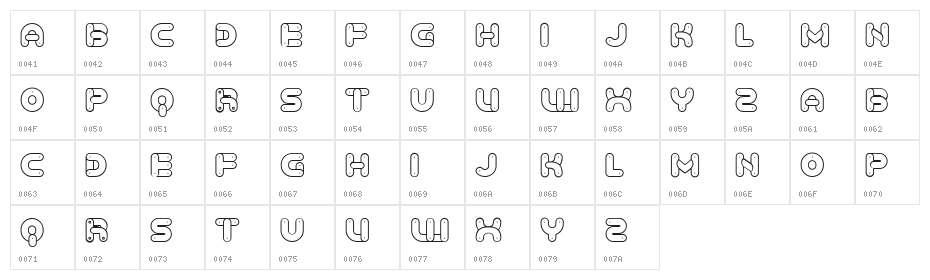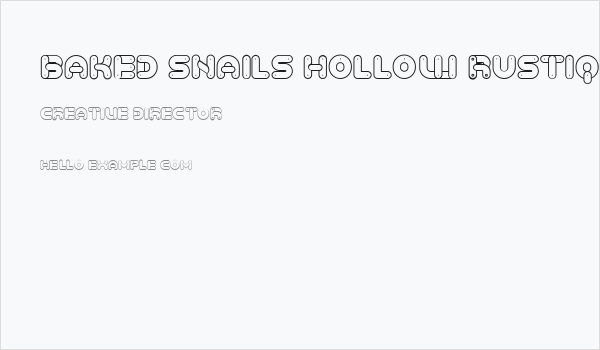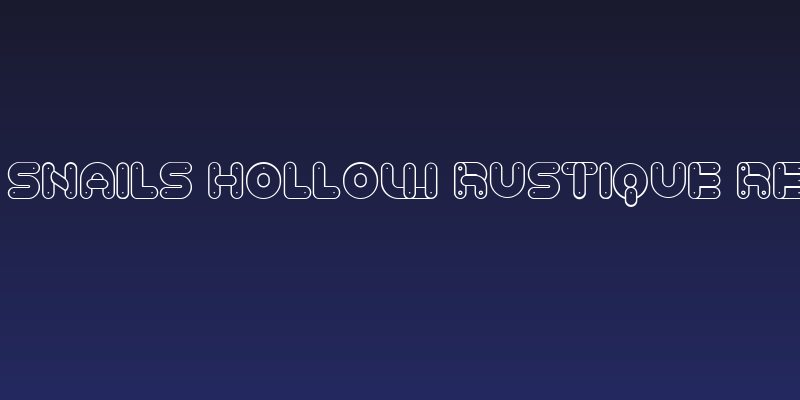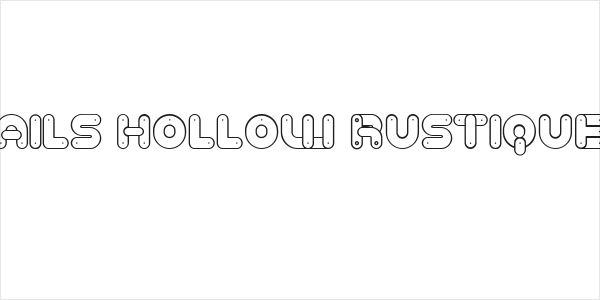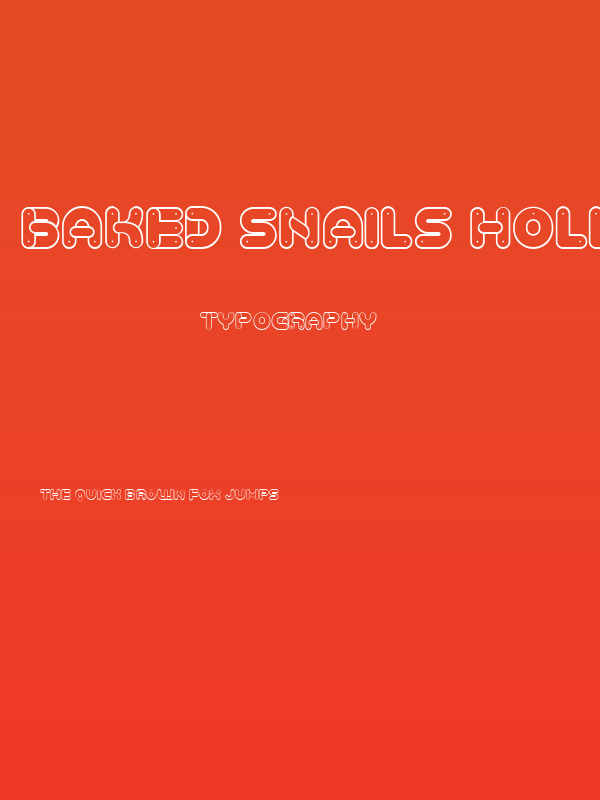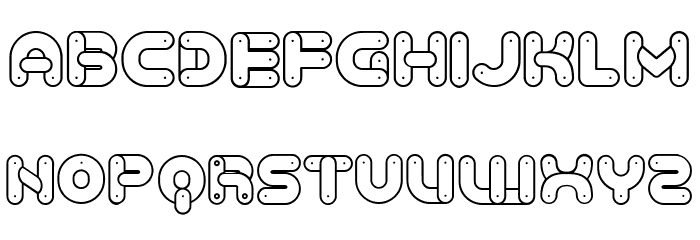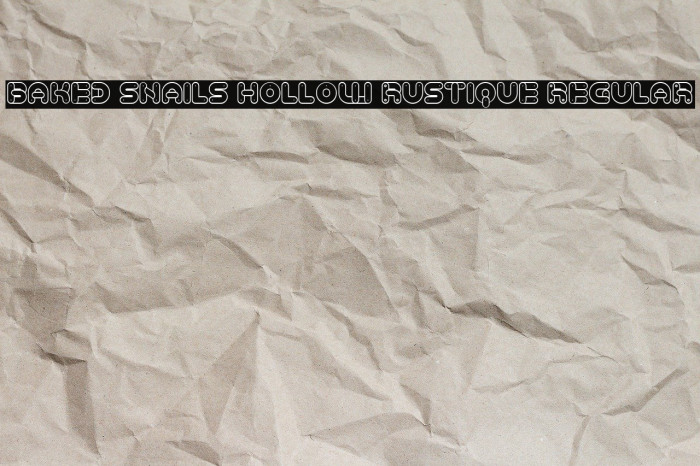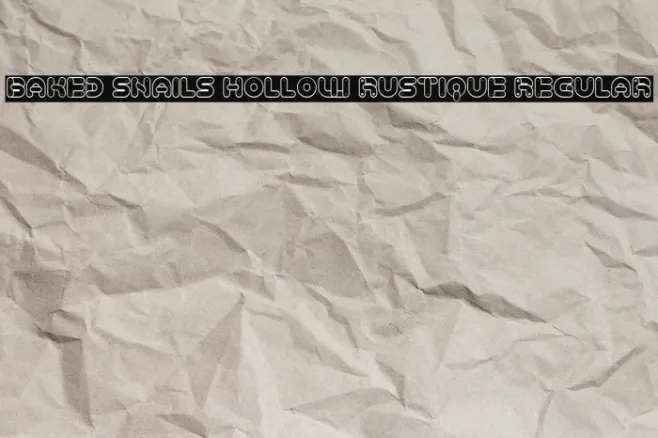
Baked Snails Hollow Rustique Regular Font
Baked Snails Hollow Rustique Regular Description
This font features a playful and unique design with hollow, rounded characters that resemble a series of connected pipes or tubes. Each letter is outlined with a bold stroke, creating a distinct and eye-catching appearance. The font maintains a consistent width throughout, giving it a uniform look. The rounded edges and hollow centers add a whimsical and modern touch, making it suitable for creative and informal projects. The characters are evenly spaced, ensuring readability while maintaining its decorative style.
| Proposed Projects | Ideal for children's books, playful branding, creative posters, and unique logo designs. |